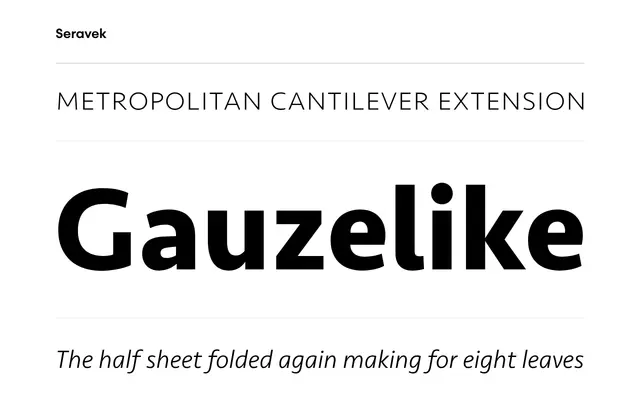
Seravek
Process Type Foundry · Eric Olson · 2007
A humanist sans by Eric Olson, designed to balance richness and legibility for information, editorial and identity work.
Released in 2007 by Eric Olson of Process Type Foundry, Seravek spans five weights in ten styles, with a refined character that keeps it unobtrusive across sustained reading and tight information hierarchies. The OpenType feature set is thorough, covering small caps, case-sensitive glyphs, old style and tabular numerals, fractions, superscript and subscript, and stylistic alternates. Its tone is understated rather than distinctive, which suits identity and editorial contexts where the type must support rather than lead.
Seravek sits in the humanist sans tradition, with refined letterforms that balance warmth and clarity rather than the strict geometry or neutrality of grotesque or geometric cuts.